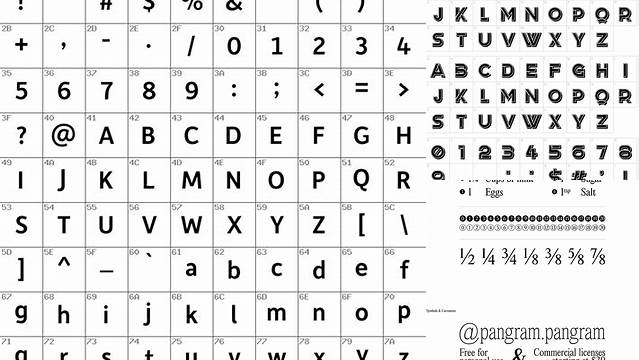
Depot New Font Family: Free Download & Usage Guide
Are you guys looking to elevate your design game with a fresh, modern typeface? Look no further! The Depot new font family is here to rescue your projects from the mundane and inject a dose of contemporary flair. In this article, we're diving deep into everything you need to know about this versatile font family, including where to find Depot new font family free downloads, its unique characteristics, design applications, and a whole lot more. So, buckle up, grab your favorite beverage, and let's explore the wonderful world of Depot!
The Depot new font family is more than just a collection of letters; it's a carefully crafted design tool intended to enhance both readability and visual appeal. Fonts, in general, are the unsung heroes of visual communication. They set the tone, convey personality, and ensure your message is not only seen but also felt. Depot, with its clean lines and contemporary aesthetic, does exactly that. It's a font that speaks volumes without shouting, perfect for a wide range of applications, from branding and advertising to web design and editorial layouts. The beauty of the Depot font lies in its versatility. Whether you're designing a sleek corporate brochure, a modern website, or an eye-catching poster, Depot fits the bill. Its neutral yet distinct character makes it easy to pair with other fonts and design elements, giving you the flexibility to create unique and engaging visuals.
When you start thinking about design, it's easy to underestimate the power of typography. A great font can transform a simple layout into a stunning masterpiece, while a poor choice can make even the most creative design fall flat. That's why selecting the right font family is crucial. Depot’s thoughtful design ensures that it’s not just visually appealing but also highly functional. The spacing between letters, the thickness of the strokes, and the overall balance of the characters have all been meticulously considered to optimize readability across various mediums and sizes. This attention to detail is what sets Depot apart from many other fonts. It’s not just about looking good; it’s about communicating effectively. So, whether you’re working on a small mobile screen or a large print banner, Depot maintains its clarity and impact, making sure your message gets across loud and clear. And the best part? You can get your hands on this fantastic font without breaking the bank. There are numerous resources where you can find Depot new font family free downloads, which we’ll be discussing in detail in the following sections.
Unique Characteristics of the Depot Font Family
So, what makes the Depot font family stand out from the crowd? Well, guys, it's all about the details. Depot boasts a unique blend of modern aesthetics and functional design, making it a versatile choice for a wide range of projects. One of its defining characteristics is its clean, geometric structure. The letters are crafted with precision, featuring straight lines and smooth curves that create a sense of clarity and sophistication. This geometric foundation gives Depot a contemporary feel, making it well-suited for designs that aim to convey a sense of modernity and innovation. But Depot is not just about sleek lines; it also has a warm and inviting quality. The subtle curves and rounded terminals add a touch of humanity, preventing the font from feeling too cold or sterile. This balance between geometric precision and organic warmth is what makes Depot so versatile. It can be used in both corporate and creative contexts, adapting seamlessly to different design styles and visual identities. The carefully considered proportions of Depot's letters are another key characteristic. The letter heights, widths, and spacing have been meticulously designed to ensure optimal readability, whether you're working with large headlines or small body text. This attention to detail is crucial for creating a positive reading experience, especially in digital environments where screen resolution and display quality can vary.
Another notable feature of the Depot font family is its variety of weights and styles. Most Depot families include a range of weights, from light and thin to bold and heavy, allowing you to create visual hierarchy and emphasize key elements in your designs. The availability of different styles, such as italic, condensed, and expanded, further enhances Depot's versatility, giving you even more options for expressing your creative vision. The italic styles, in particular, are often beautifully crafted, with a distinctive slant and elegant letterforms that add a touch of sophistication to any design. Depot also excels in its ability to pair well with other fonts. Its neutral yet distinctive character makes it easy to combine with a wide range of typefaces, from classic serifs to contemporary sans-serifs. This flexibility is a huge asset for designers who want to create unique and dynamic typographic compositions. You can use Depot for headlines and subheadings, pairing it with a different font for body text, or vice versa. Experimenting with different font combinations can help you create a visual identity that is both cohesive and visually interesting. The Depot font family truly shines when used in designs that require a modern and professional look. Its clean lines and balanced proportions make it an excellent choice for branding, corporate communications, and web design. However, its versatility also allows it to be used in more creative and artistic contexts, such as posters, packaging, and editorial layouts. So, if you're looking for a font that combines style, functionality, and versatility, Depot might just be the perfect choice for your next project.
Design Applications of the Depot Font
Now, let's get into the exciting part: how can you actually use the Depot font family in your designs? The possibilities are virtually endless, guys! Depot's versatile nature makes it a fantastic choice for a wide range of applications, from branding and marketing materials to web design and editorial layouts. In the realm of branding, Depot can be a powerful asset for creating a strong and memorable visual identity. Its clean, modern aesthetic conveys a sense of professionalism and innovation, making it well-suited for businesses in various industries. Use Depot in your logo, website, and marketing collateral to establish a consistent and impactful brand presence. The different weights and styles within the Depot family allow you to create visual hierarchy and add emphasis to key messages, ensuring your brand communication is clear and engaging. Depot also works beautifully in marketing materials such as brochures, flyers, and posters. Its readability and visual appeal make it an excellent choice for headlines, subheadings, and body text. Whether you're promoting a product, service, or event, Depot can help you create eye-catching designs that capture attention and convey your message effectively. Consider using bold weights for headlines to grab attention and lighter weights for body text to ensure readability. Experiment with different color combinations and graphic elements to create visually stunning designs that align with your brand identity.
When it comes to web design, Depot is a true champion. Its clean lines and balanced proportions make it highly legible on screens of all sizes, from desktop monitors to mobile devices. This is crucial for creating a positive user experience, as visitors to your website will be able to read your content comfortably and easily. Use Depot for website headers, navigation menus, and body text to create a cohesive and professional look. Its modern aesthetic also makes it a great choice for blogs, online magazines, and other content-rich websites. Depot can also shine in editorial layouts, such as magazines, newspapers, and books. Its versatility allows it to adapt to different design styles, from classic and elegant to modern and minimalist. Use Depot for headlines, subheadings, and captions to create a visual hierarchy and guide the reader's eye through the page. Pair it with a serif font for body text to create a sophisticated and balanced typographic composition. Depot's clean and legible letterforms also make it a great choice for longer articles and documents, ensuring a comfortable reading experience. Beyond these common applications, Depot can also be used in various other design projects, such as packaging, signage, and presentations. Its adaptability and visual appeal make it a valuable tool in any designer's toolkit. So, whether you're working on a corporate project or a creative endeavor, Depot can help you achieve your design goals. Don't be afraid to experiment with different weights, styles, and combinations to discover the full potential of this fantastic font family.
Conclusion: Elevate Your Designs with Depot
In conclusion, guys, the Depot new font family is a fantastic addition to any designer's toolkit. Its versatile nature, clean lines, and modern aesthetic make it a perfect choice for a wide range of projects. Whether you're designing a logo, a website, or a brochure, Depot can help you create visually stunning and effective designs. And with the numerous resources available for Depot new font family free download, there's no reason not to give it a try! We've explored the unique characteristics of Depot, its various design applications, and where to find free downloads. We've highlighted its geometric structure, warm quality, and the variety of weights and styles that make it so adaptable. We've also discussed how Depot can be used in branding, marketing, web design, editorial layouts, and more.
Remember, the key to great design is not just about choosing the right font, but also about using it effectively. Experiment with different weights, styles, and combinations to create visual hierarchy and emphasize key messages. Pay attention to letter spacing, line height, and overall typographic composition to ensure your designs are both beautiful and legible. And don't be afraid to try new things and push the boundaries of your creativity. With Depot as your trusty companion, you'll be well-equipped to tackle any design challenge that comes your way. So, go ahead, download Depot, and start creating! We're confident that you'll love its versatility, its elegance, and its ability to transform your designs from ordinary to extraordinary. Happy designing, guys! We hope this comprehensive guide has been helpful in your quest for the perfect font. Keep exploring, keep creating, and keep pushing the boundaries of design. The world of typography is vast and exciting, and with fonts like Depot at your disposal, the possibilities are truly limitless.